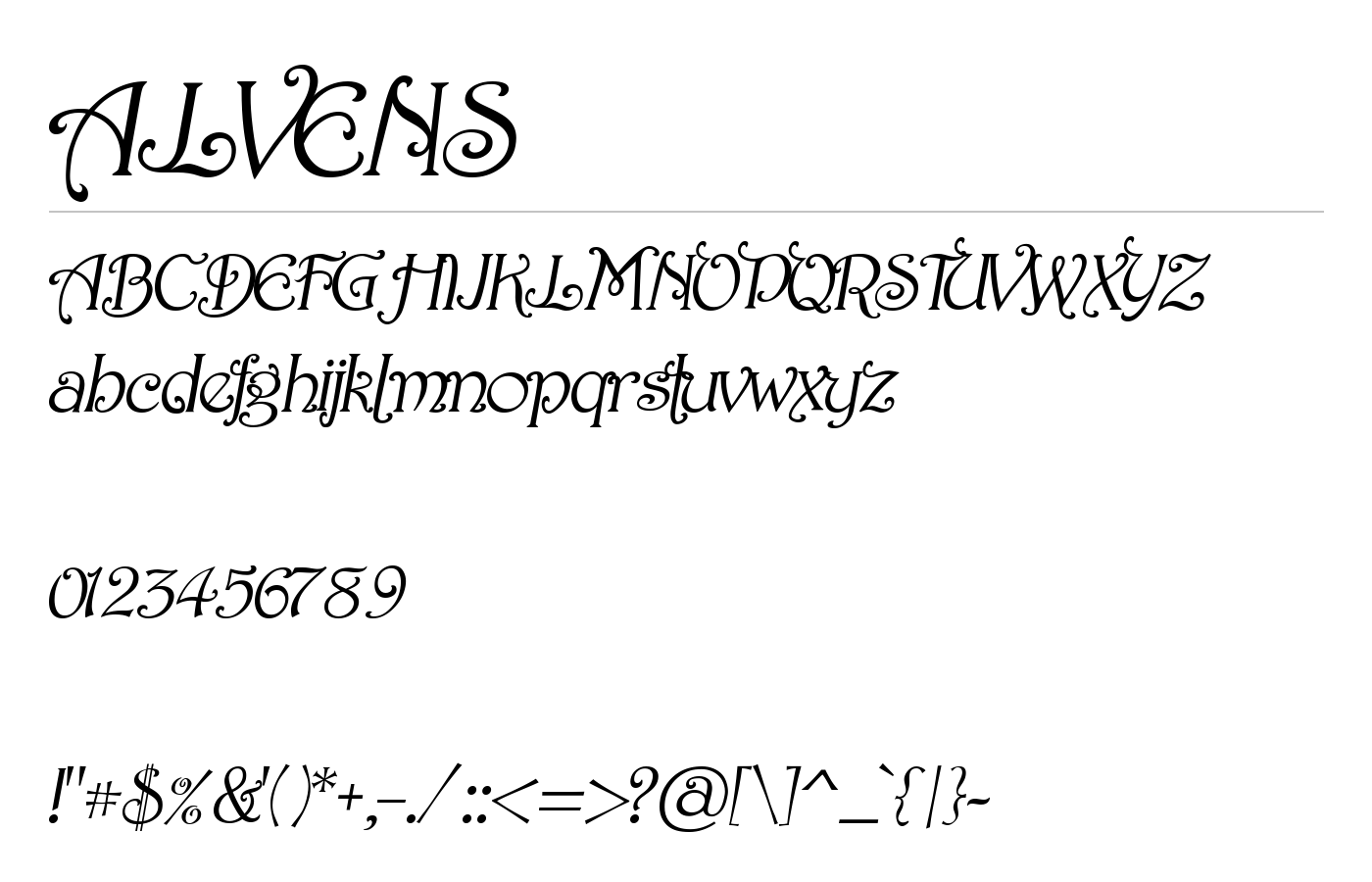
Alvens is a decorative serif font with elegant, flowing strokes and intricate swirls that give it a whimsical, artistic feel. Its moderate contrast and delicate curves make it ideal for use in invitations, branding, or headers where a touch of sophistication and creativity is desired. This font works best for projects that want to convey charm and elegance without feeling overly formal.
Alvens Font
About Alvens Font
| Font family | Alvens Font |
| Designer | Stringlabs. 2020 |